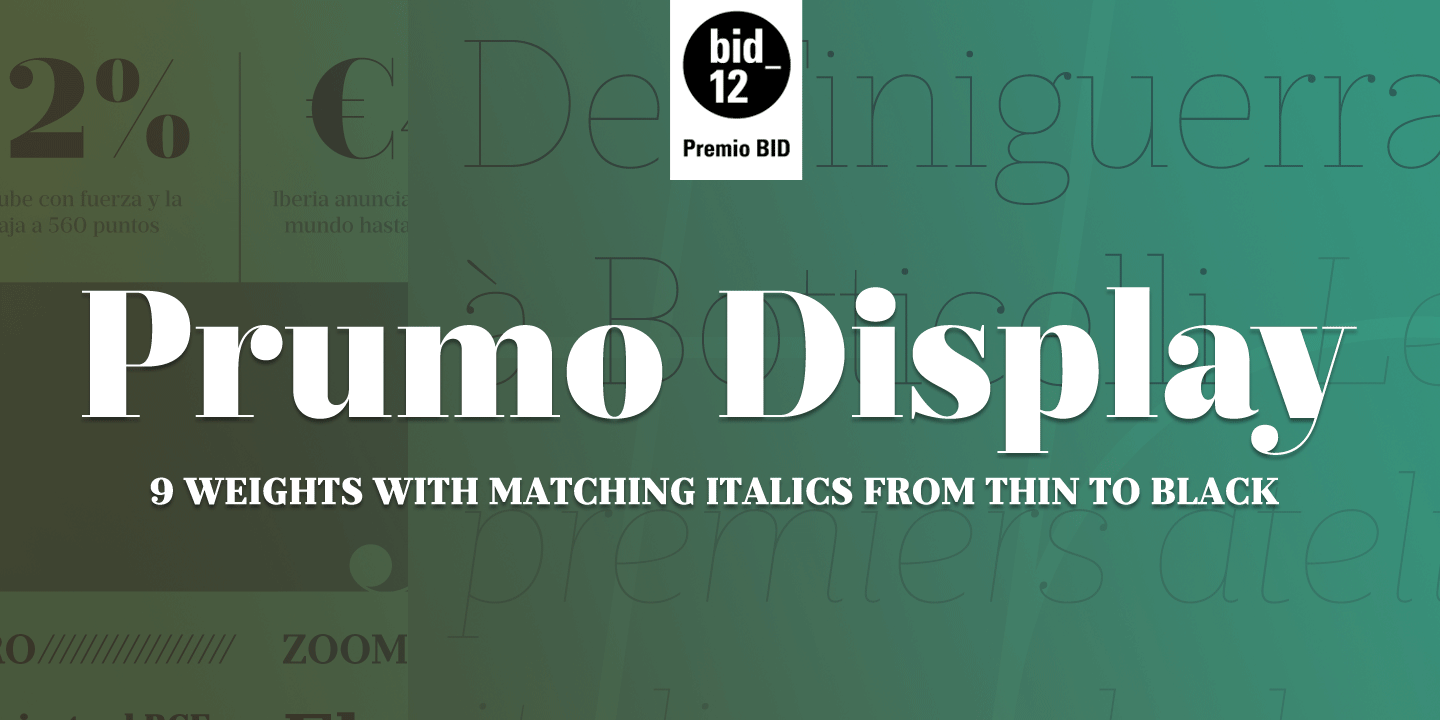
Prumo Display Font is perfect for large-scale headlines, exhibition banners, poster designs, billboard advertising, architectural signage, museum displays, conference materials, trade show graphics, retail storefronts, magazine covers, and impactful visual communications.
Prumo Display Font is exciting because it commands attention with its bold, commanding presence that transforms ordinary headlines into powerful visual statements. Its carefully engineered letterforms are specifically optimized for large-scale applications, ensuring maximum readability and impact at any size while maintaining the sophisticated elegance that modern brands demand for premium positioning.
Prumo Display Font family includes thin, light, regular, medium, bold, and black weights, each with corresponding italic versions. The font family also features condensed and extended variations, stylistic alternates, display-optimized ligatures, and specialized punctuation designed specifically for headline and large-format applications.
This commanding typeface represents the perfect fusion of visual impact and typographic refinement. Prumo Display Font Free Download enables designers to evaluate its headline capabilities before making a commercial investment. The font's ability to create instant visual hierarchy makes it ideal for brands seeking to establish dominant presence in competitive visual environments.
Whether you're designing large-scale advertising campaigns, creating exhibition materials, or developing impactful storefront signage, Prumo Display Font delivers exceptional visual command and professional authority. Its display-optimized character and robust structure ensure consistent performance across all large-format applications.
The font's versatility excels in high-visibility environments where immediate impact and clear communication are essential. Its commanding presence makes it particularly effective for retail signage, exhibition design, outdoor advertising, and any application where grabbing attention is paramount.
For designers working on projects requiring maximum visual impact and headline dominance, Prumo Display Font offers an exceptional solution. Its display-optimized features and comprehensive weight range provide the tools needed for commanding large-scale communications, while its sophisticated design ensures your headlines maintain elegance even at massive scales.